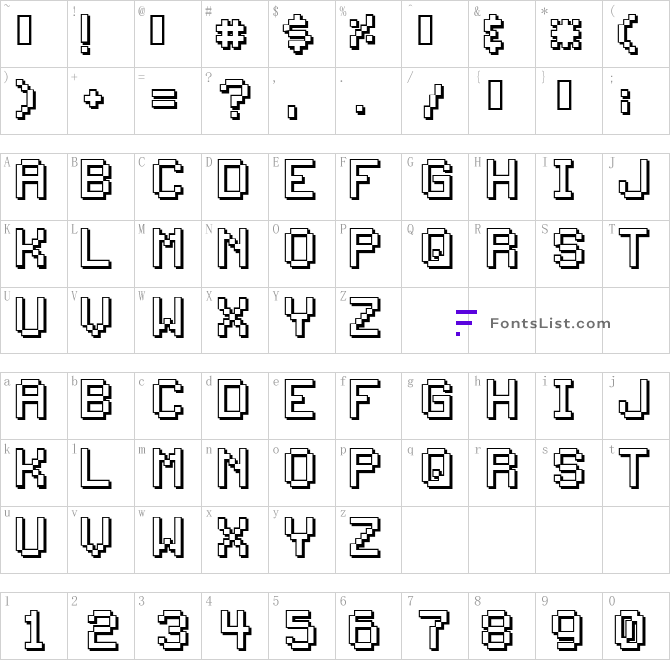
- Font Name:Back to 1982
Back-to-1982.ttf is a very beautiful artistic font, Back-to-1982.ttf is widely used in the design and printing of various books and pictures,Back-to-1982.ttf has a strong visual impact,Back-to-1982.ttf is a commonly used font in newspapers, magazines and books, and is used in posters, e-commerce Poster design, store design, logo design, font design and other fields.Back-to-1982.